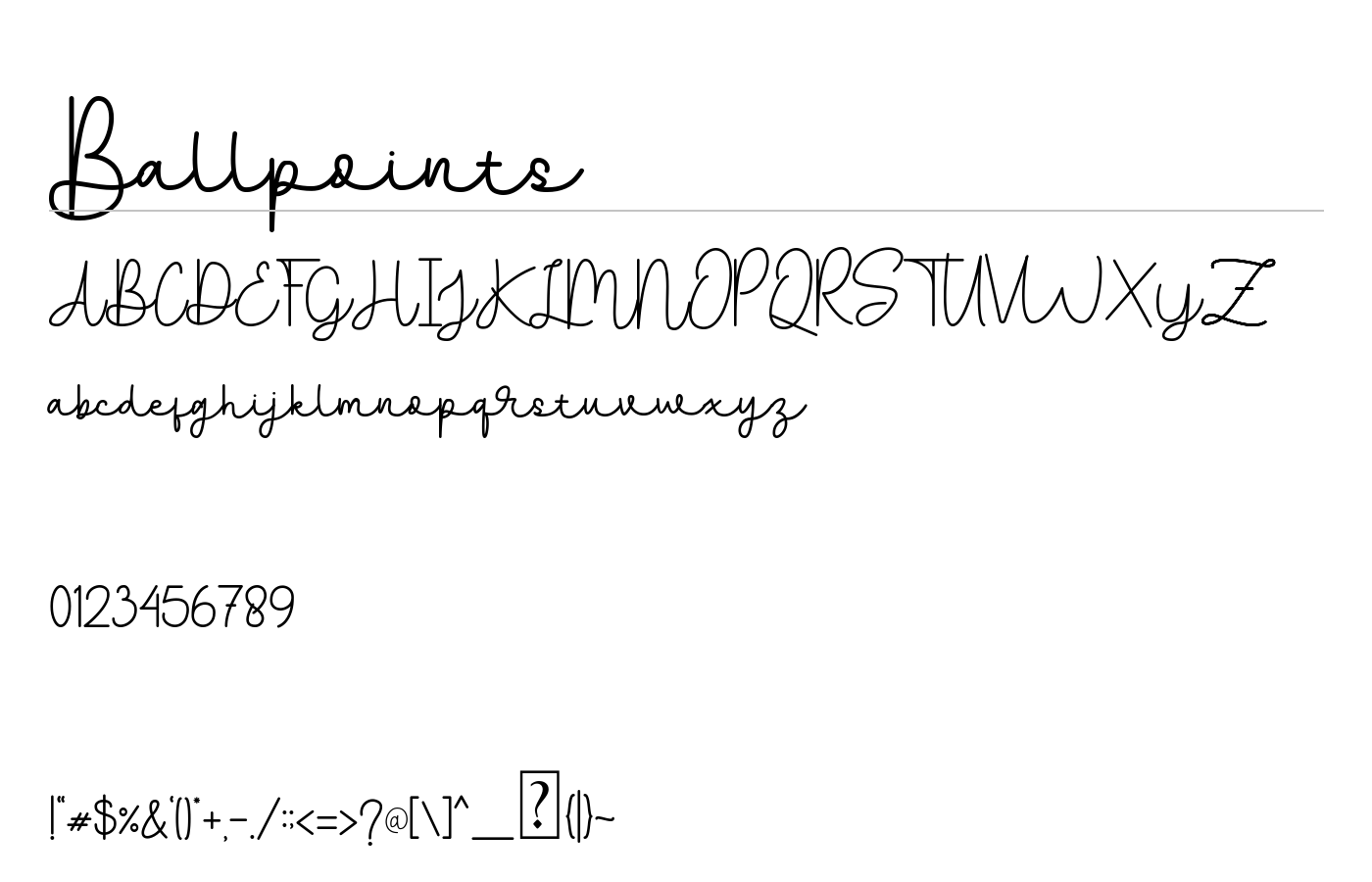
Ballpoints Font is a delicate, narrow script typeface that mimics the smooth flow of ballpoint pen handwriting. Its thin, connected strokes and playful loops give it a light, casual, and personal feel, making it ideal for creative projects, invitations, and informal branding where a friendly and approachable impression is desired. This font works well for designs that require a handwritten touch with a clean, airy appearance.
Ballpoints Font
About Ballpoints Font
| Font family | Ballpoints Font |
| Designer | JunCreative (Muhamad Junaid) @mjart96 |